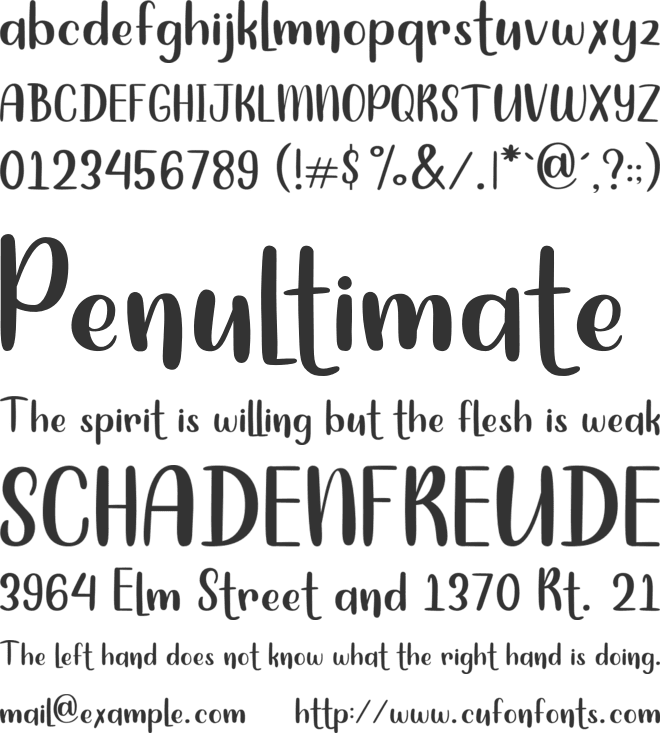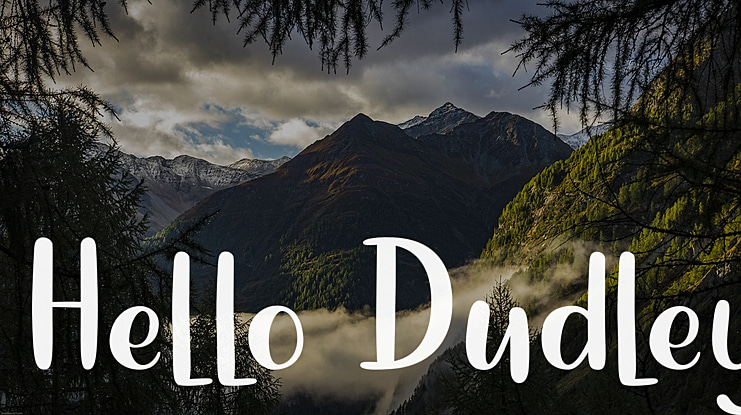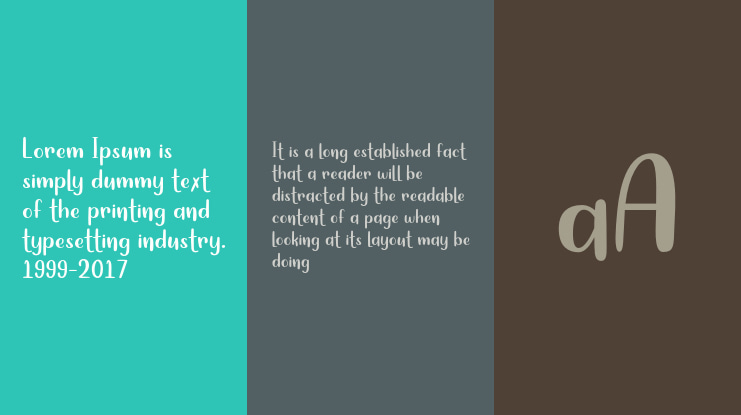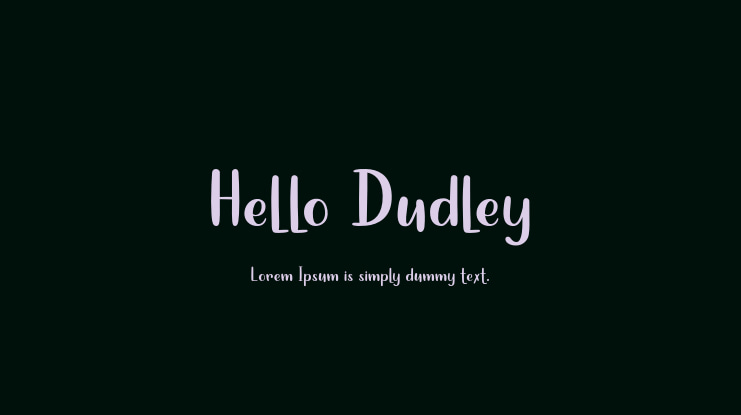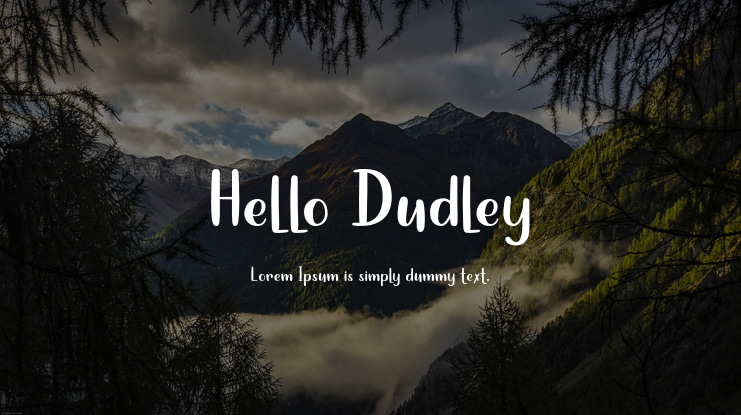
Hello Dudley Font
Introducing Hello Dudley by TlatoustypeA fancy and elegant handcrafted font that create to impress your audience and make your branding shine.Make your projects dance with this elegant and wonderful font wherever you use it. Use it for yourheadings, logos, ads, printed quotes, packaging, and even your website or social media branding.-Link to purchase commercial license with an option: https://www.creativefabrica.com/designer/tlatous-type-Link Donation (PayPal) :